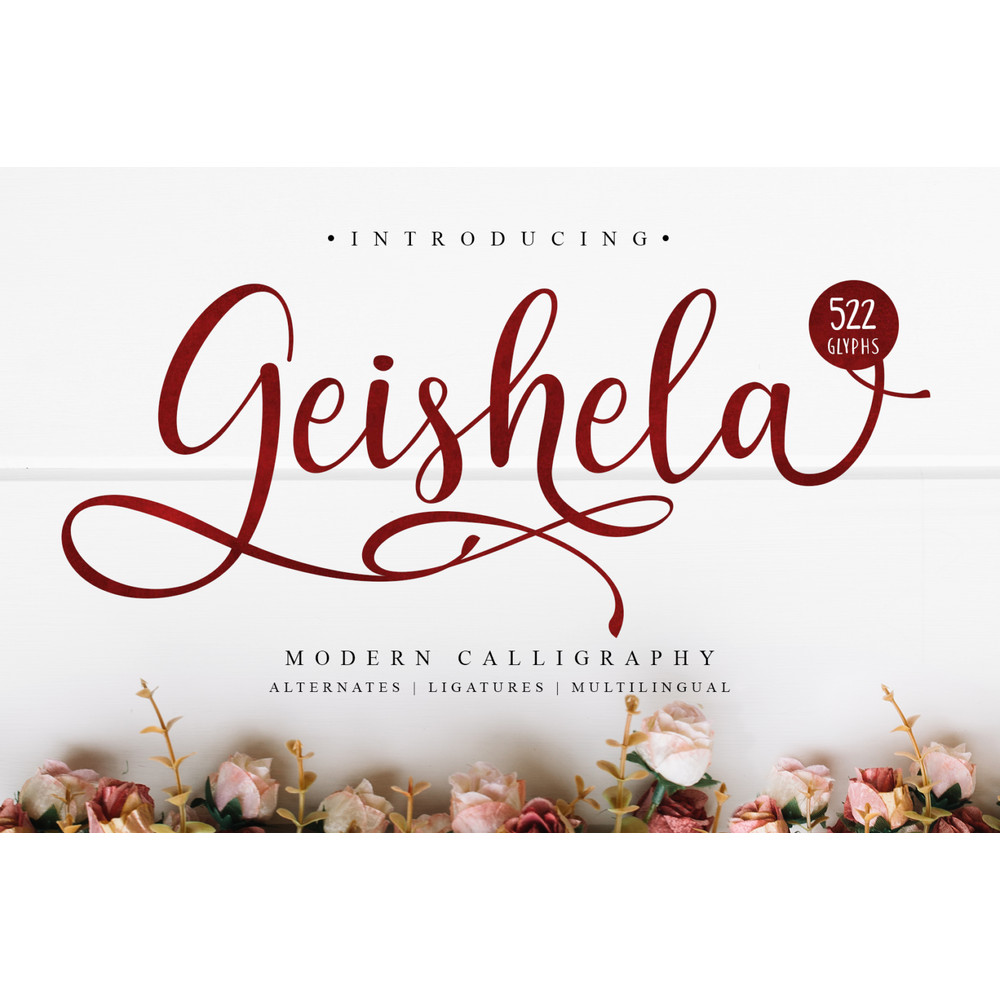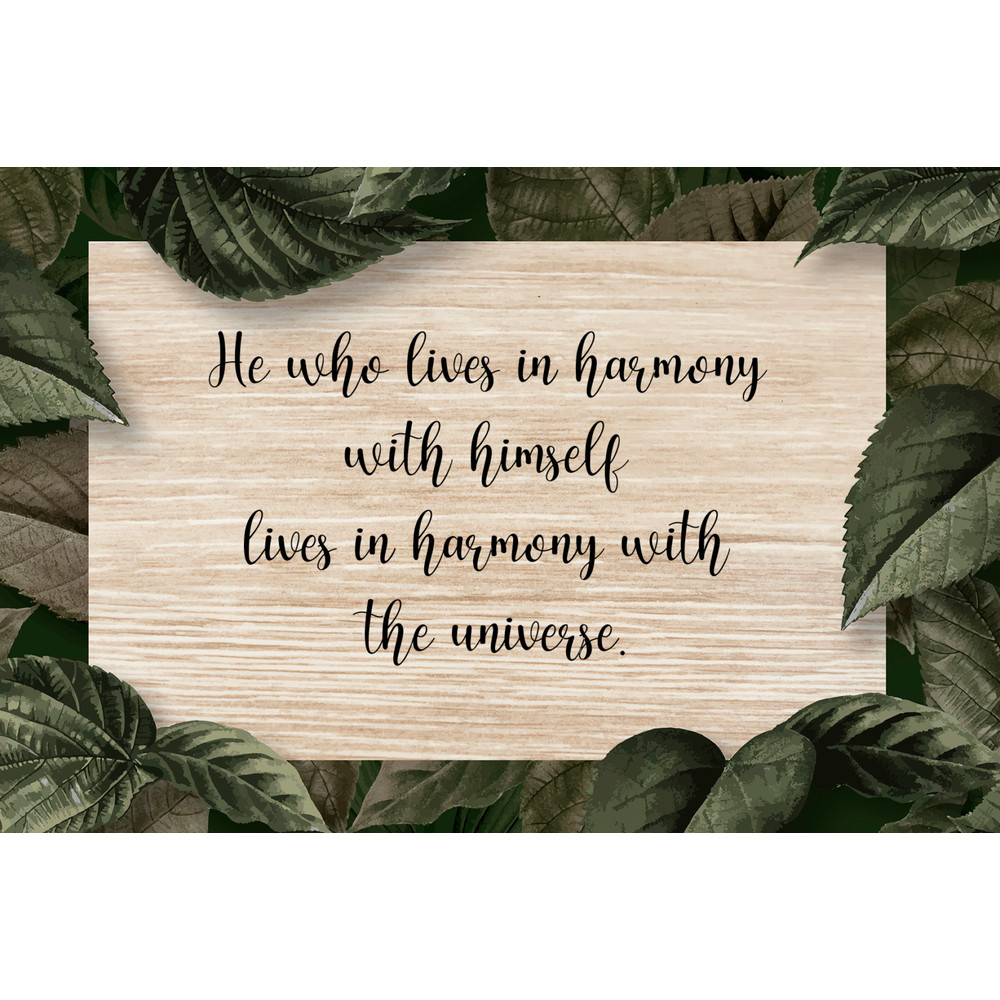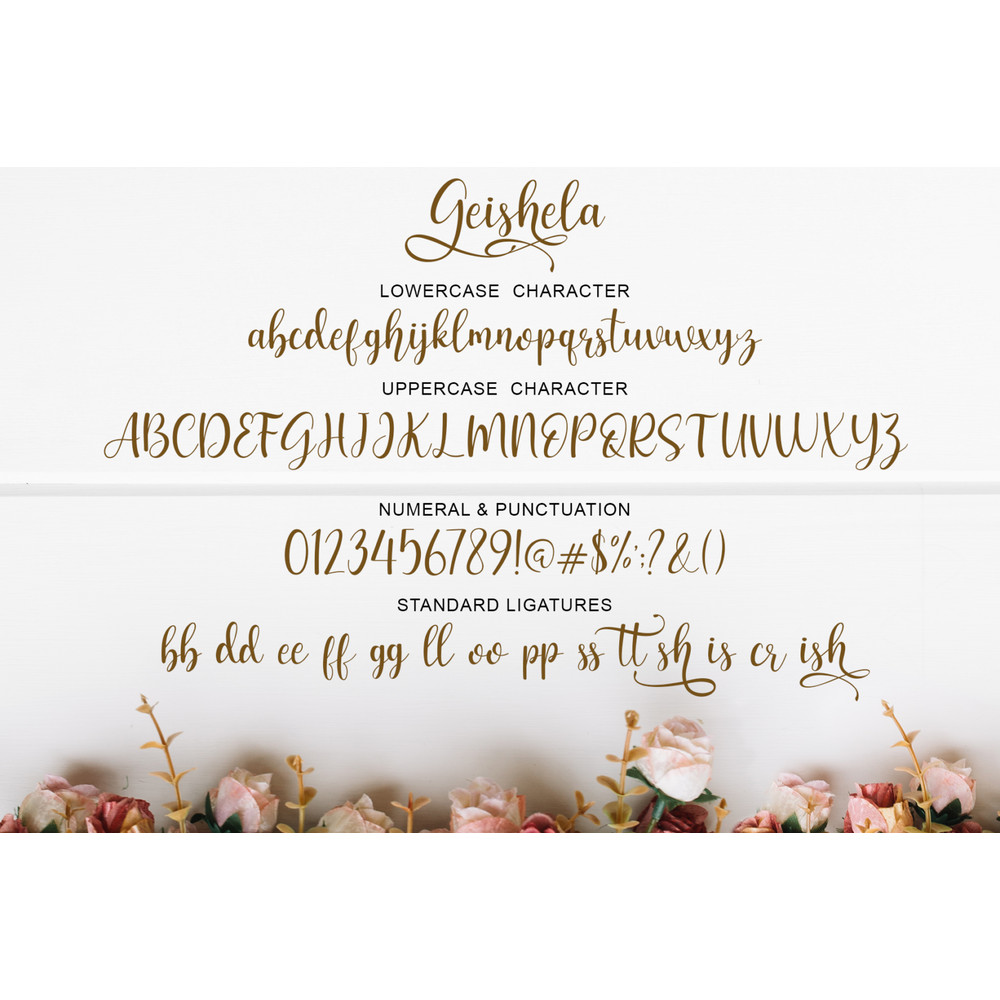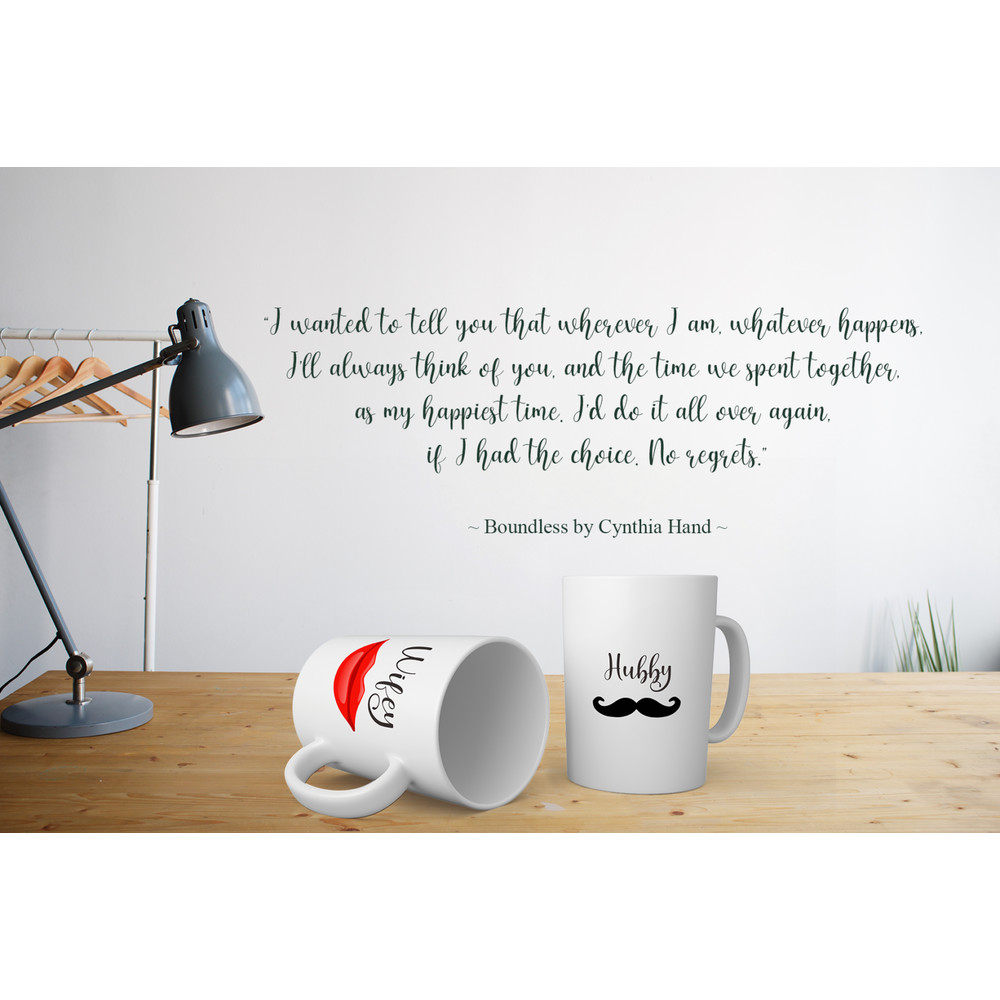
The Geishela Script is an elegant font. It has an original handwritten look and can be used to give a natural impression to your designs. It can be used for logos, brochures, business cards, photography, crafts, invitations and much more!